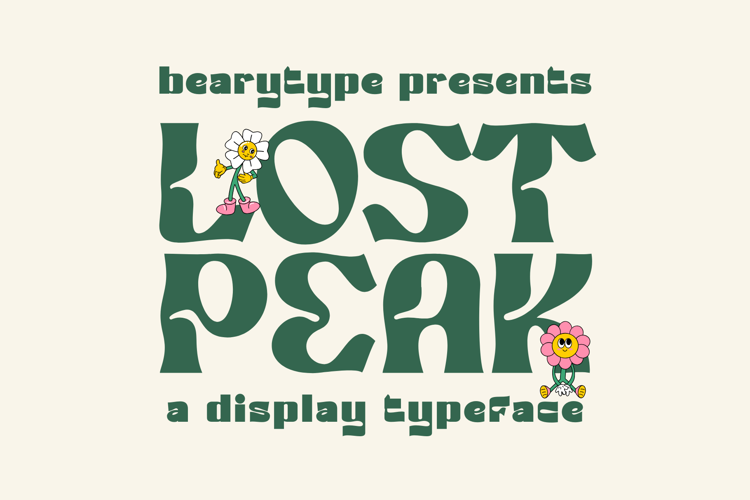
Lost Peak Font
Lost Peak Font is a Art Nouveau font and was created on . Lost Peak Font has been downloaded 453 times, added to 14 collections, and liked 1 times.